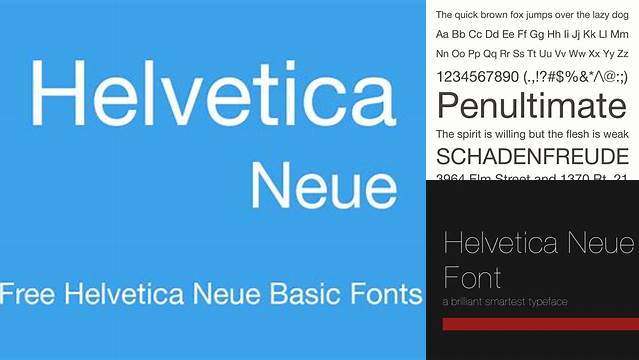
Hey guys! Are you on the hunt for a super versatile and classic font that's also totally free to download? Look no further, because we're diving deep into the world of Helvetica Neue CE! This font is a real gem, used by tons of big brands and designers, and lucky for you, getting your hands on it doesn't have to break the bank. In this article, we'll explore everything you need to know about Helvetica Neue CE, where to snag it for free, how to use it, and why it's still such a popular choice today. So, buckle up and let's get started!
H2: What Makes Helvetica Neue CE So Special?
Alright, let's kick things off by talking about what makes Helvetica Neue CE such a standout font. First off, it's a member of the Helvetica family, which is basically font royalty. This particular version, CE, includes support for Central European languages, which is a massive plus if you're working on projects that require those character sets. This expanded character set alone makes Helvetica Neue CE incredibly versatile. Think about all the different languages and regions you might be reaching with your designs – this font's got you covered! It's clean, modern, and incredibly readable, which is why it's been a go-to for designers for decades. Its neutrality also allows it to fit perfectly within a range of design aesthetics; from minimalist designs to vibrant and eye-catching compositions, Helvetica Neue CE serves as an excellent foundational typeface. The font’s simplicity is key; there are no unnecessary flourishes or details, so the focus stays on the message. Its widespread use has established it as a safe and reliable choice, ensuring your message will be clearly understood. Beyond readability, the font's consistent weight and proportional widths across all its characters add to its visual harmony, offering a professional and polished appearance. Its design enables it to perform well in various sizes and contexts, from tiny text on a website to large headlines on billboards. Helvetica Neue CE is also available in a wide range of weights and styles (like regular, bold, italic, condensed, etc.). This gives you tons of creative freedom to express your ideas the way you want to. From posters and presentations to website designs and logos, Helvetica Neue CE is a workhorse that can handle pretty much anything you throw at it. Its adaptability contributes to its lasting popularity and widespread adoption in various fields.
H2: Different Styles and Weights of Helvetica Neue CE
Alright, let's get into the nitty-gritty of the different styles and weights available for Helvetica Neue CE. This font family is not a one-trick pony; it comes with a vast range of options to suit any design need. You've got the classic Regular, which is perfect for body text and general use. Then, there's Bold, which packs a punch for headlines and emphasis. Italic styles provide a touch of elegance and are perfect for quotes or emphasizing specific words. In addition, you’ll find condensed versions of the font that are great for when space is at a premium. These styles are narrower, allowing you to fit more text into a smaller area. Beyond these basics, Helvetica Neue CE also includes light, medium, and heavy weights, each of which adds another layer of versatility to your designs. Each weight adds another dimension, allowing you to establish a visual hierarchy that guides the reader’s eye. The different weights also influence the overall tone of your design. For example, a heavier weight might convey strength and authority, while a lighter weight might create a sense of delicacy or refinement. The combination of weights and styles allows you to create a cohesive and visually appealing design that works across multiple platforms. This diversity provides a complete toolkit, enabling designers to craft compelling layouts for various applications, from logos and branding to web and print design. This extensive variety of styles and weights enables designers to produce unique layouts and effectively convey their desired messages.
H2: Using Helvetica Neue CE in Your Designs: Best Practices
So, you've got your hands on Helvetica Neue CE – awesome! Now, let's talk about how to use it like a pro. First off, consider the context. Where will your design be seen? If it's for print, the readability of your font is paramount. For web, you'll need to think about how it renders on different screens and devices. Helvetica Neue CE is generally very readable, even at smaller sizes, but it’s still important to test how it looks across different platforms. This ensures your message remains clear and accessible to your audience. The versatility of the font makes it suitable for both headlines and body text. Use the bolder weights for headlines to grab attention and the regular or light weights for body text to ensure comfortable reading. Remember that less is often more. Try not to overdo it with too many different weights or styles within a single design. This can make your design look cluttered and confusing. You want to make sure the font works harmoniously with other design elements. Balance the font with the images, colors, and overall design to create a visually appealing experience. Make sure that there's enough contrast between the text and the background. Ensure the text has sufficient visual prominence to be readily and easily readable. Consider the kerning (the space between letters) and leading (the space between lines of text). These small adjustments can dramatically improve readability. Pay close attention to the overall spacing and layout of your text to ensure it's easy to read and understand. Always proofread your work! Double-check for any typos or formatting issues before finalizing your design. This attention to detail will help enhance the quality and professionalism of your work.
H2: Helvetica Neue CE vs. Other Similar Fonts
Let’s compare Helvetica Neue CE to some other popular fonts you might consider using. If you are looking for alternatives, Arial is often seen as a similar choice; it's a sans-serif font that is widely available and often comes pre-installed on many operating systems. However, Arial is sometimes criticized for its less refined design compared to Helvetica Neue CE. Its letterforms are broader, and some designers find the overall aesthetic less elegant. Another close competitor is Roboto, a popular font created by Google. It has a modern and approachable feel, and it's also highly legible. Roboto is a great choice for digital interfaces, particularly on Android devices. While it is free to use, and a good choice for user interfaces, it may not possess the same timeless appeal as Helvetica Neue CE. Then there's Univers, which is another Swiss-style sans-serif font, very similar in design to Helvetica Neue. Univers has some distinct features, such as its unique numbering system, which could be an appealing factor for some designers. The choice between these different fonts will ultimately depend on the specific needs of your project, the overall aesthetic you want to achieve, and your personal preferences. The best thing you can do is experiment and see which font works best for your design.
H2: The History and Evolution of Helvetica Neue CE
Now, let's take a quick trip back in time to explore the history and evolution of Helvetica Neue CE. The story starts with Helvetica, originally designed in 1957 by Max Miedinger and Eduard Hoffmann. Its initial name was Neue Haas Grotesk, but it was later renamed Helvetica, which is derived from the Latin word for Switzerland, reflecting its Swiss origins. The design was conceived with the goal of creating a neutral, clean, and highly legible typeface. The aim was to be a font with no inherent meaning, that simply presented the words. The original Helvetica quickly gained popularity, especially in advertising and corporate branding. Its simple design helped convey a sense of modernism and efficiency. Over the years, Helvetica has undergone several refinements and expansions. The CE version, which includes support for Central European languages, is a crucial part of its evolution, broadening its usability. This expansion showed how Helvetica could be adapted to meet the demands of global communication. The font family includes a range of weights and styles, and the continued popularity of the typeface is a testament to its timeless design and adaptability. The evolution of Helvetica Neue CE showcases how design can adapt and grow.
H2: The Future of Font Design: How Helvetica Neue CE Influences Trends
Let's talk about the future of font design and how Helvetica Neue CE influences modern design trends. The font has had a large impact. Its clean and neutral design continues to influence other fonts. Designers are building on the strengths of the font. The font has established the importance of readability and simplicity. The font will likely continue to influence future design trends. The font’s simple design has proven to be adaptable. The future of font design is bright.